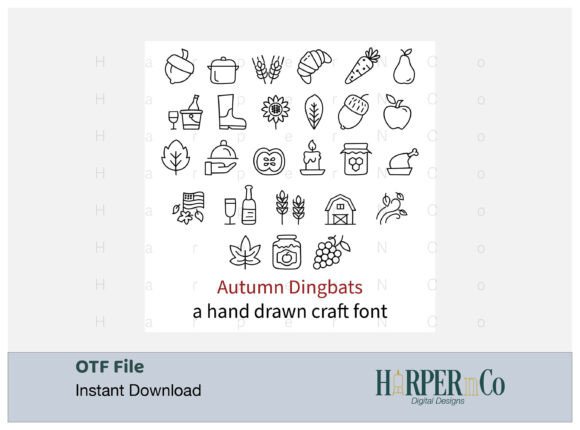
Autumn Dingbats Font: The Perfect Addition to Your Craft Projects
As the leaves change colors and the air grows crisper, we can’t help but feel the excitement of autumn. The season of cozy sweaters, warm apple cider, and vibrant fall foliage is upon us. For crafters, this means it’s time to get creative with autumn-themed projects. And what better way to add a personal touch to your crafts than with a unique and adorable font? Introducing the Autumn Dingbats Font, a hand-drawn dingbat font that’s perfect for customizing all your autumn and Thanksgiving craft projects.
What is the Autumn Dingbats Font?
The Autumn Dingbats Font is a one-of-a-kind, hand-drawn font that’s packed with autumn-themed dingbats. These charming illustrations include leaves, acorns, pumpkins, turkeys, and more. With this font, you’ll have access to a wide range of fun and festive designs to add a personal touch to your crafts.
- Hand-drawn dingbat font with unique and adorable illustrations
- Perfect for autumn and Thanksgiving craft projects
- Includes a wide range of autumn-themed designs, such as leaves, acorns, pumpkins, and turkeys
- Great for customizing shirts, keychains, gifts, tags, bags, and more
Craft Project Ideas Using the Autumn Dingbats Font
The Autumn Dingbats Font is incredibly versatile and can be used for a wide range of craft projects. Here are some ideas to get you started:
- Custom shirts: Add a fun and festive touch to your shirts with the Autumn Dingbats Font. Use it to create custom designs for yourself or as gifts for friends and family.
- Keychains: Use the font to create custom keychains with autumn-themed designs. Perfect for adding a personal touch to your keys or as a gift for someone special.
- Gifts: Add a personal touch to your gifts with custom tags and labels featuring the Autumn Dingbats Font.
- Tags: Create custom tags for your gifts, decorations, or DIY projects using the font’s adorable illustrations.
- Bags: Use the font to create custom designs for your bags, whether it’s a tote bag, a lunch bag, or a gift bag.
Benefits of Using the Autumn Dingbats Font
So, why choose the Autumn Dingbats Font for your craft projects? Here are just a few benefits:
- Unique and adorable designs: The Autumn Dingbats Font offers a wide range of unique and adorable illustrations that will add a personal touch to your crafts.
- Versatile: The font can be used for a wide range of craft projects, from custom shirts to gift tags.
- Fun and festive: The Autumn Dingbats Font is perfect for adding a fun and festive touch to your crafts, making them perfect for autumn and Thanksgiving celebrations.
Tips and Tricks for Using the Autumn Dingbats Font
Here are a few tips and tricks for getting the most out of the Autumn Dingbats Font:
- Experiment with different colors: The Autumn Dingbats Font looks great in a variety of colors, so don’t be afraid to experiment and find the perfect color scheme for your project.
- Mix and match designs: The font includes a wide range of illustrations, so try mixing and matching different designs to create a unique look.
- Use it with other fonts: The Autumn Dingbats Font pairs well with other fonts, so try using it with your favorite font to create a custom look.
- Have fun: Most importantly, have fun with the font! The Autumn Dingbats Font is designed to be enjoyed, so don’t be afraid to get creative and try new things.